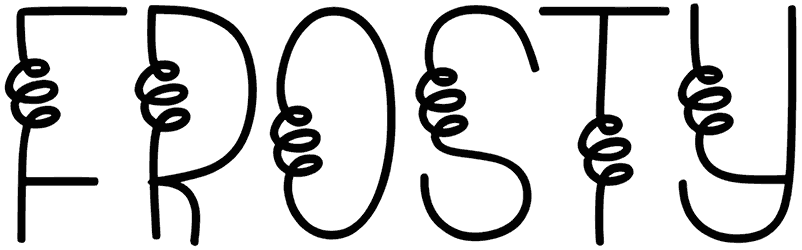
Frosty Font
Whether you’re working on a kid’s project or want an exciting font, Frosty can give you what you want. This display font with springs designed on the letters’ edge can carry all the aesthetic load without the need for any other decorative elements.
Even without small letters, this decorative font gives you the power to focus the reader for a few moments. So if you want to multiply your customers by spreading good vibes, Frosty will be your guide to success.